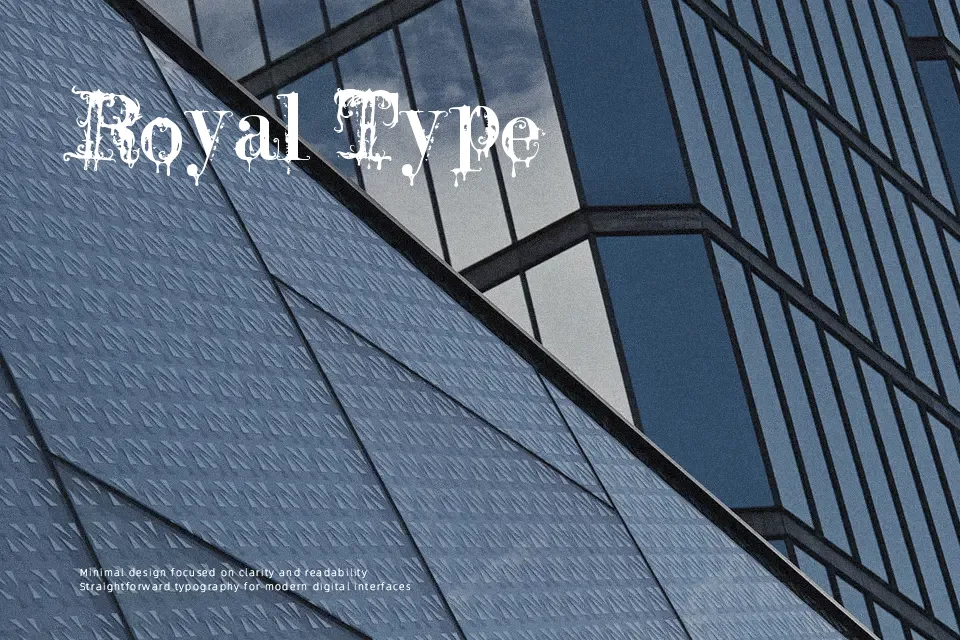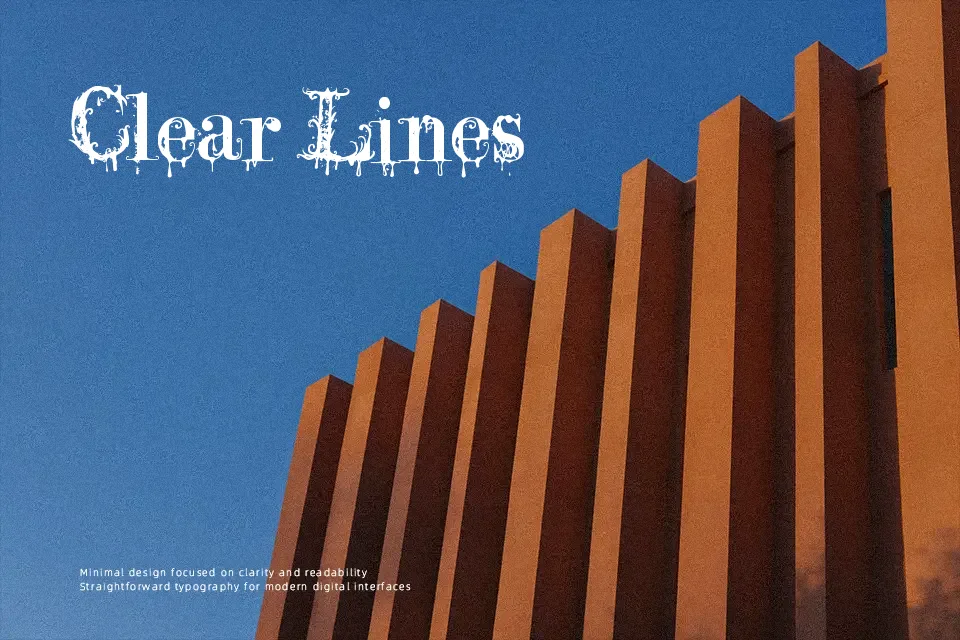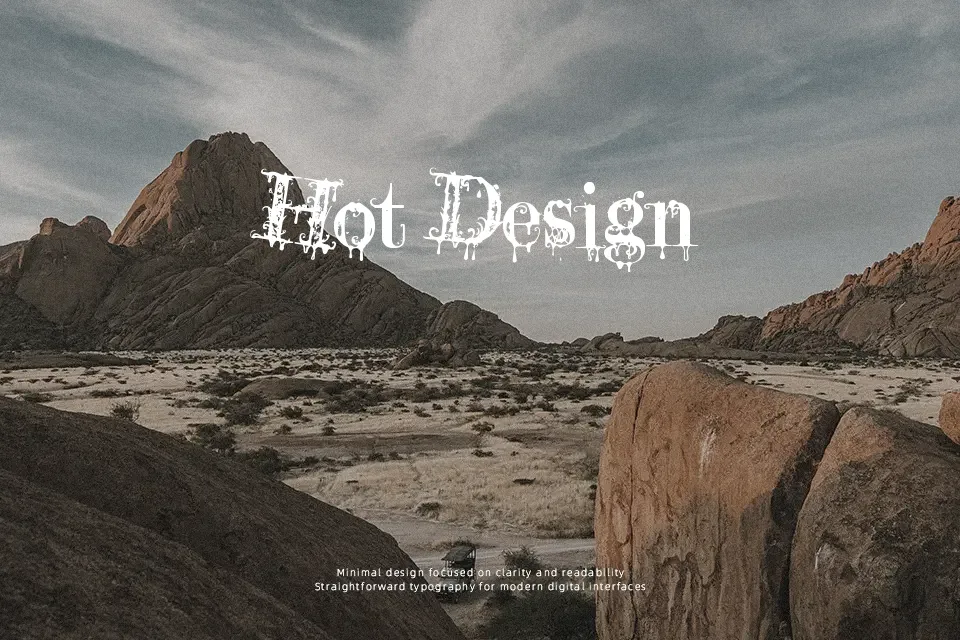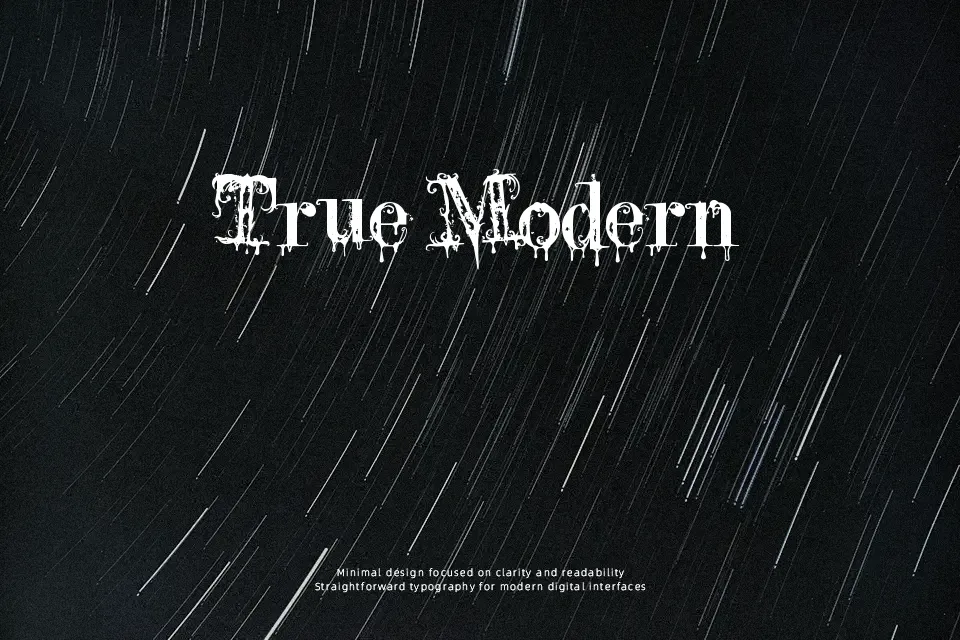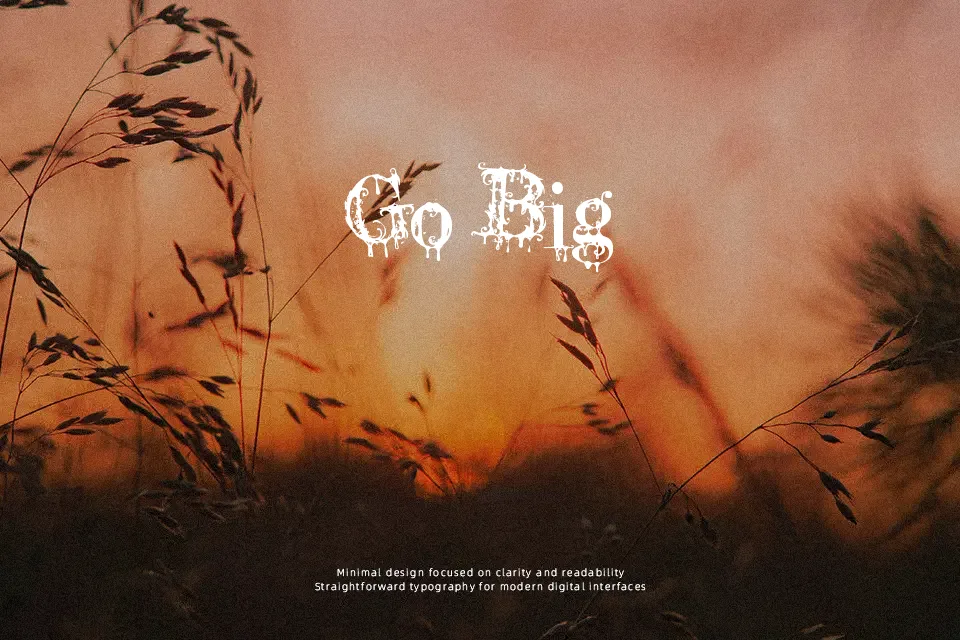
A Lolita Scorned Font
Designed by AngeliQ
There’s a theatrical tension in A Lolita Scorned — the letterforms carry an edge that sits somewhere between gothic script and ornate display lettering, with strong stroke contrast and dramatic curves that command attention. At headline sizes, it delivers real visual impact for dark-themed editorial layouts, Halloween event posters, or fashion lookbooks with a moody tone. The spacing between characters feels intentionally tight, which reinforces its intense personality but also means that body text or small-size usage becomes difficult to read quickly. If you need something that feels emotionally charged and slightly unsettling, this delivers — but designers working on approachable or professional contexts should look elsewhere. It’s a strong choice when the subject matter matches the font’s inherent drama.
– Horror or Halloween event poster headlines
– Gothic or dark fashion editorial titles
– Themed music album or merchandise branding
– Dramatic social media header graphics
– Body text or extended reading at small sizes
– Corporate, legal, or professional documentation
– Friendly or lighthearted branding projects
– UI labels or navigation elements
Perfect for branding, editorial, and fashion, with a dark and decorative style.